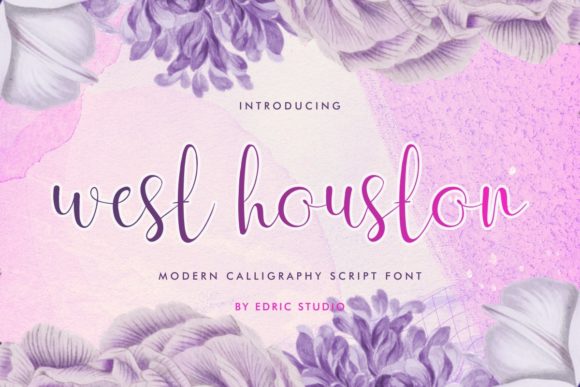
Unveil the Enchanting World of West Houston Script: A Font Symphony for Every Occasion
Embark on a typographic journey with West Houston, a script font that captivates with its grace and charm. Inspired by the vibrant spirit of its namesake city, this font family dances across your designs like a delicate melody.
Indulge in the beauty of West Houston, a script font that ignites creativity and adds a touch of sophistication to any project. Whether you're designing a heartfelt birthday card, crafting an enchanting wedding invitation, or creating a captivating social media post, West Houston elevates your words with its timeless allure.
With its flowing curves and elegant lines, West Houston effortlessly weaves a tapestry of emotions, making your designs resonate with your audience. Say goodbye to ordinary fonts and embrace the artistry of West Houston, a font crafted for those who demand excellence.
Unlock the endless possibilities of West Houston, a font that transcends boundaries and adapts seamlessly to your design vision. Whether you're seeking a classic aesthetic or a contemporary edge, West Houston adapts effortlessly, enhancing your designs with a touch of elegance and charm.
Experience the magic of West Houston, a script font that transforms the mundane into the magnificent. Its captivating beauty breathes life into your creations, leaving an indelible mark on your audience. Embrace the artistry, embrace the elegance, embrace West Houston.